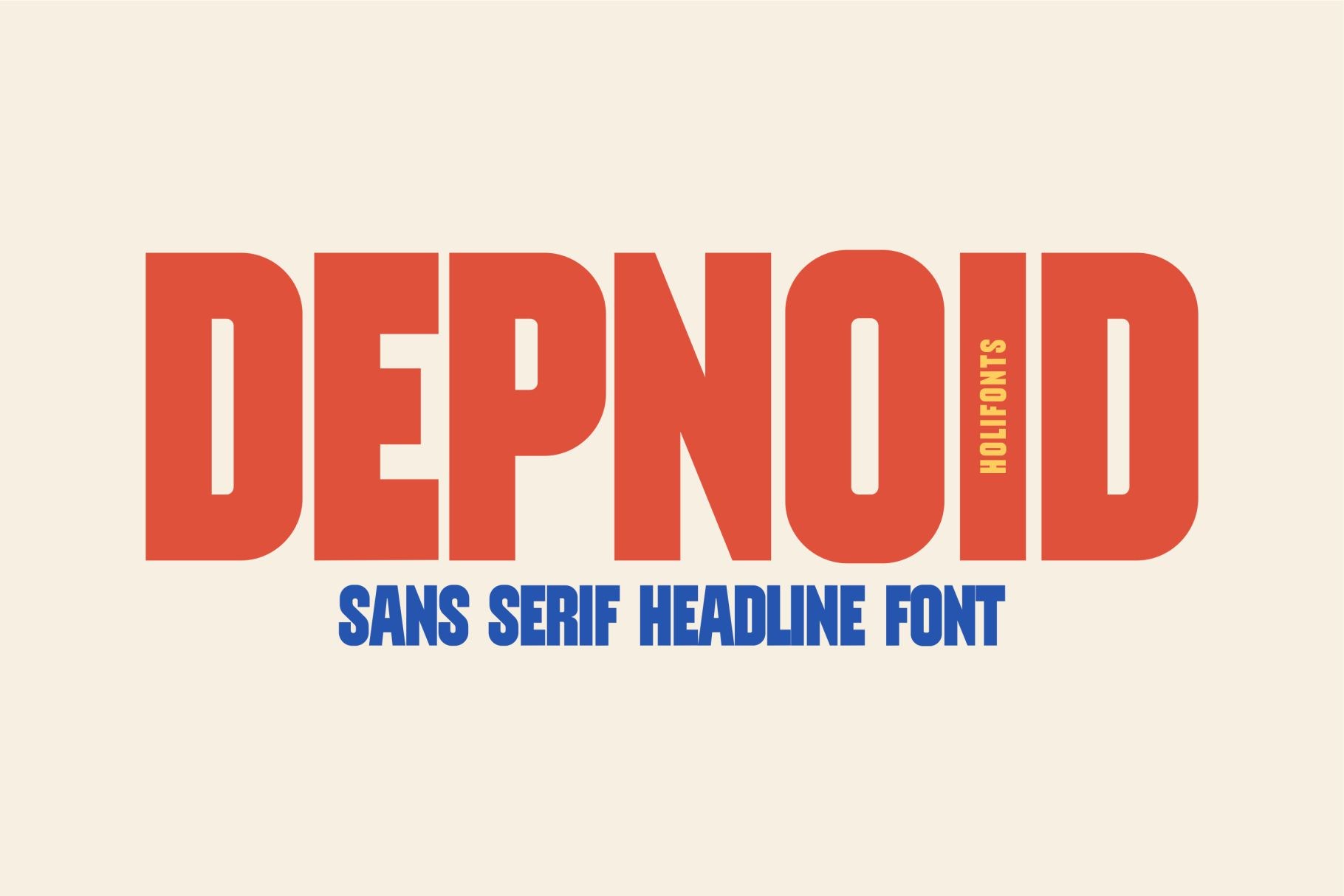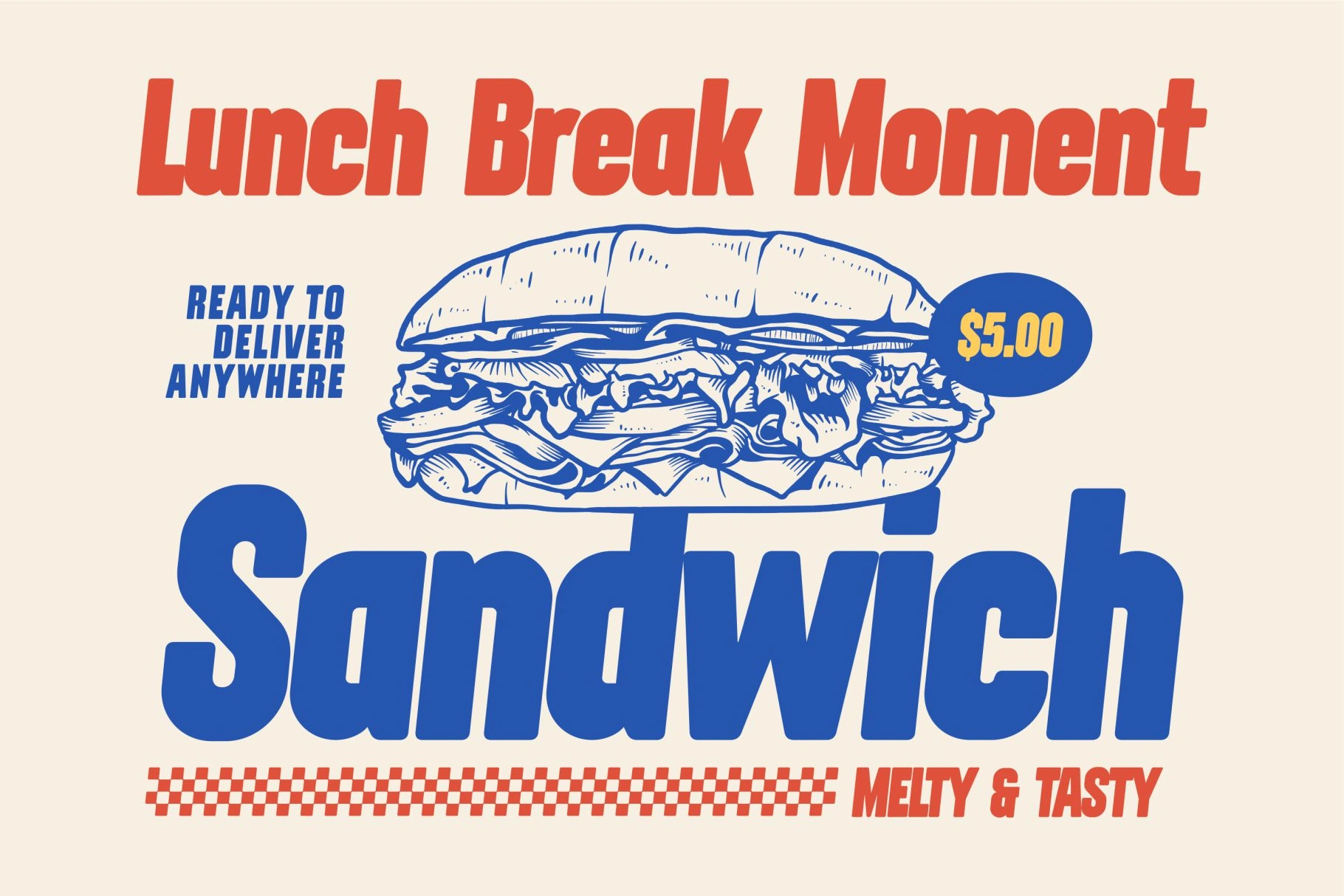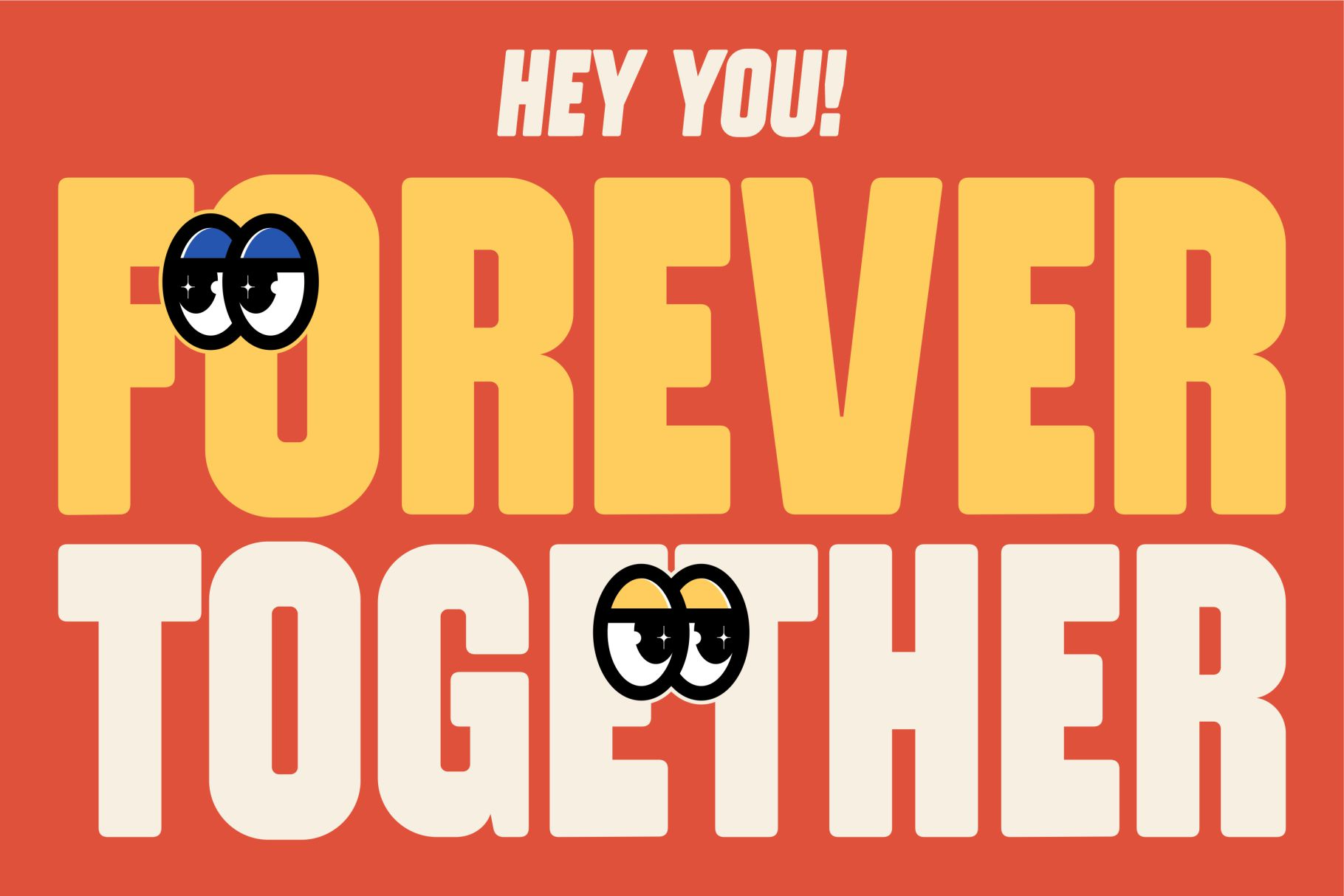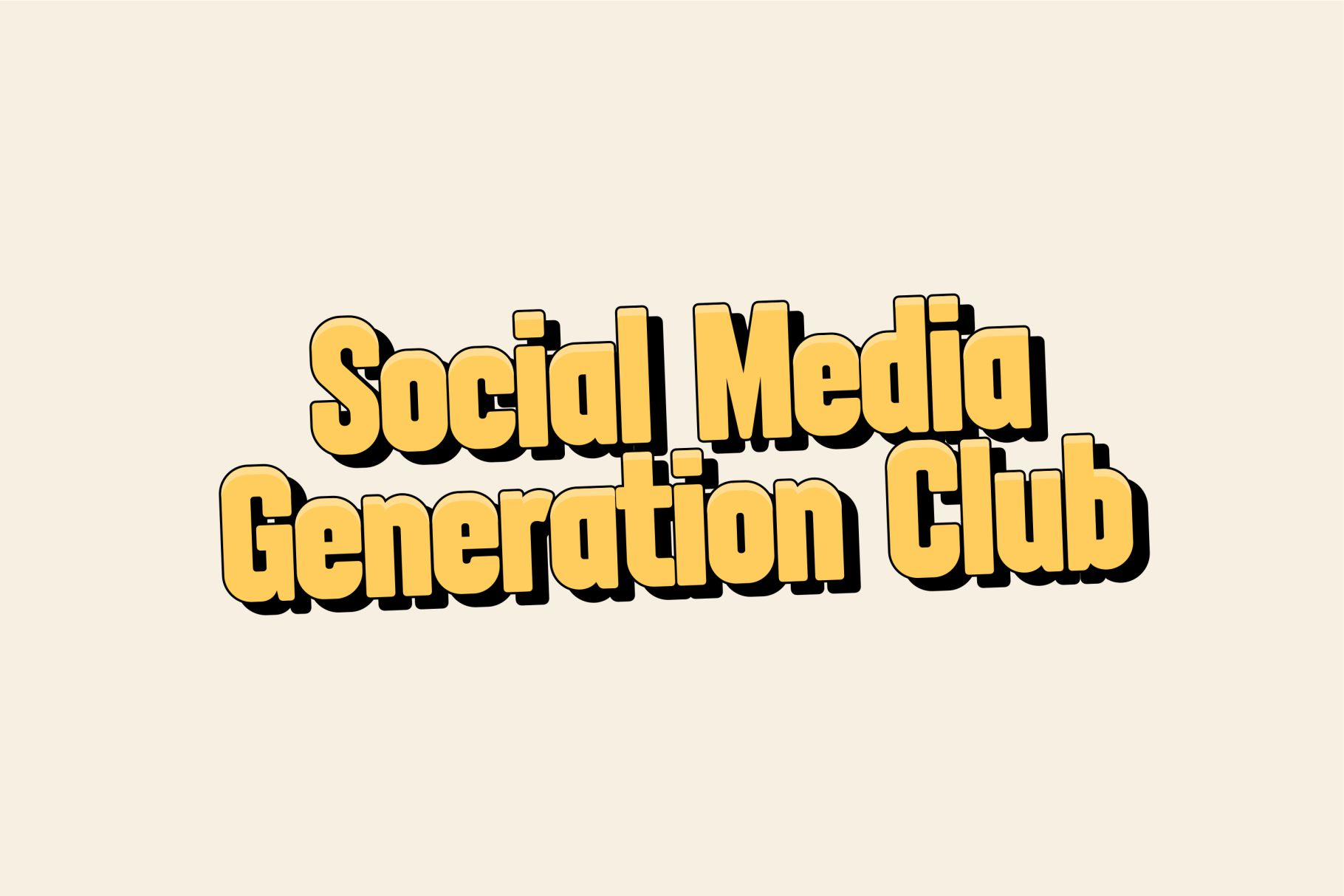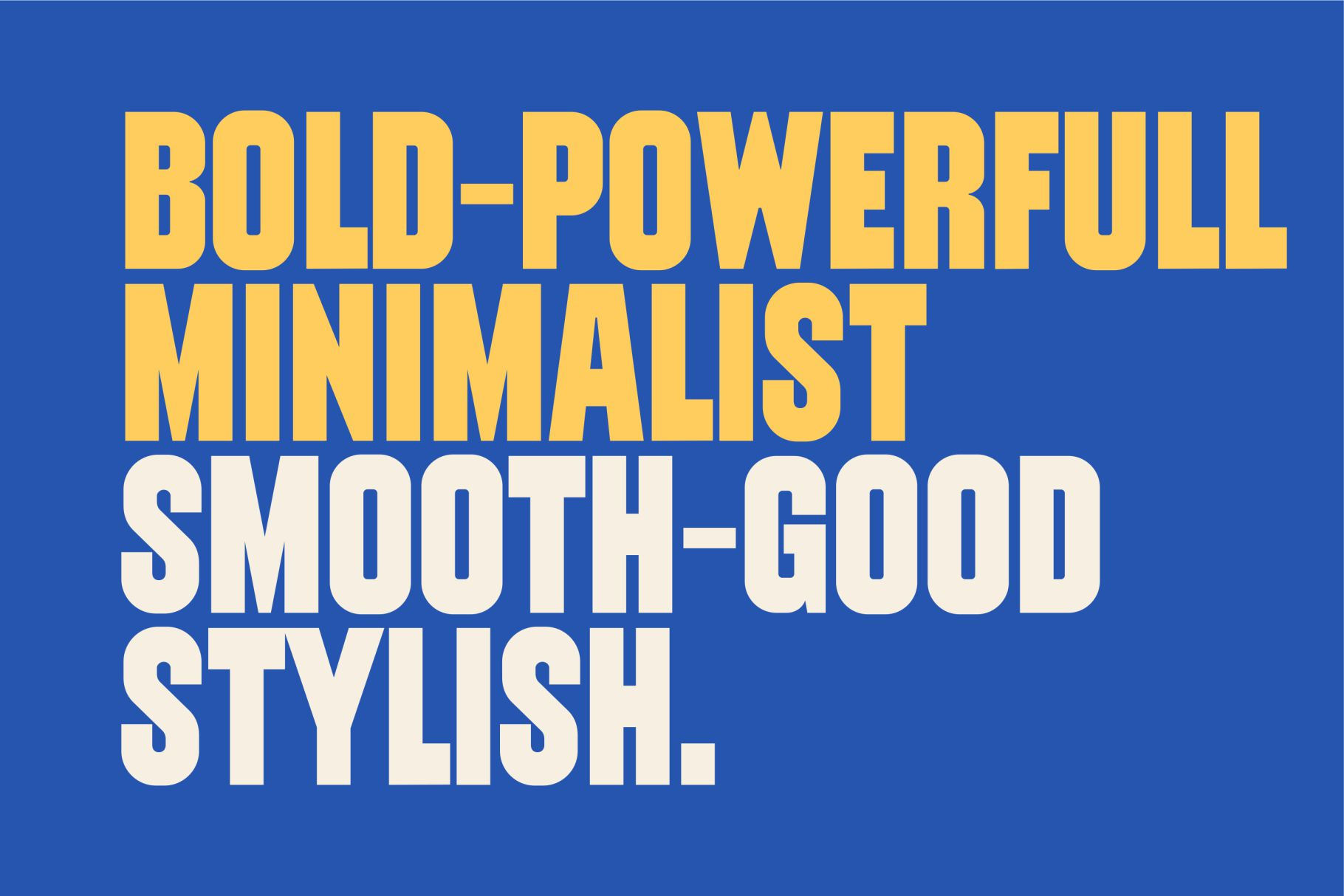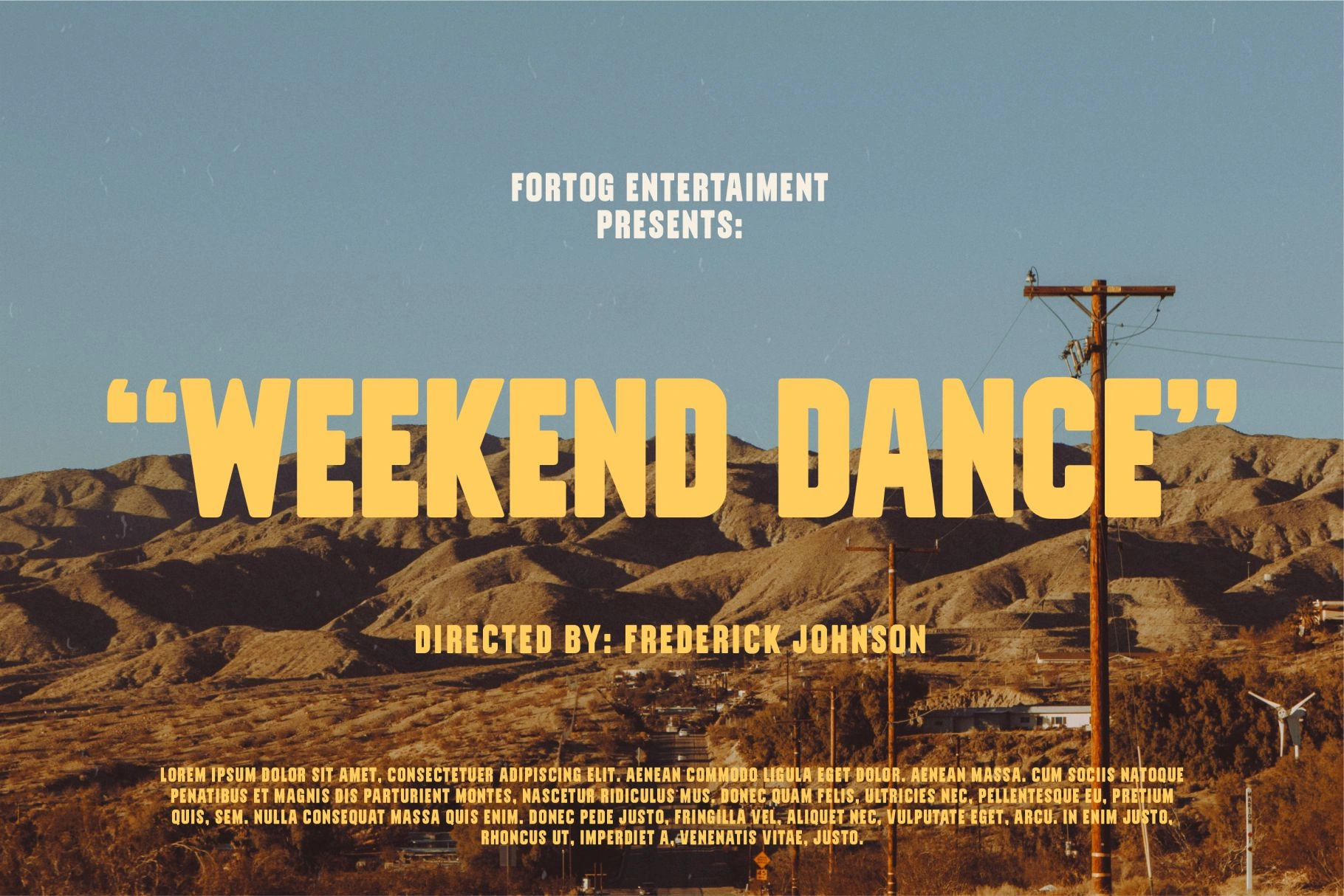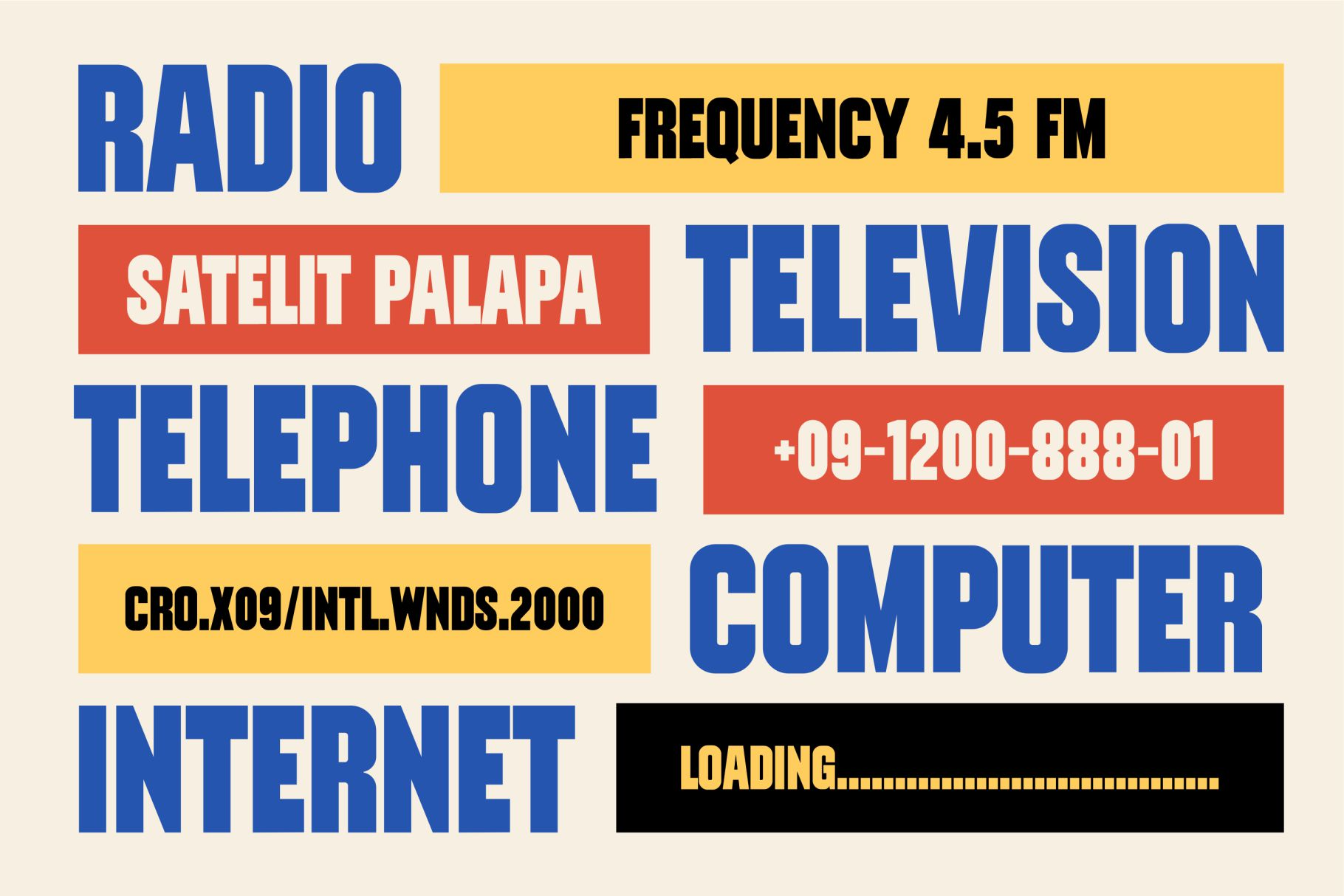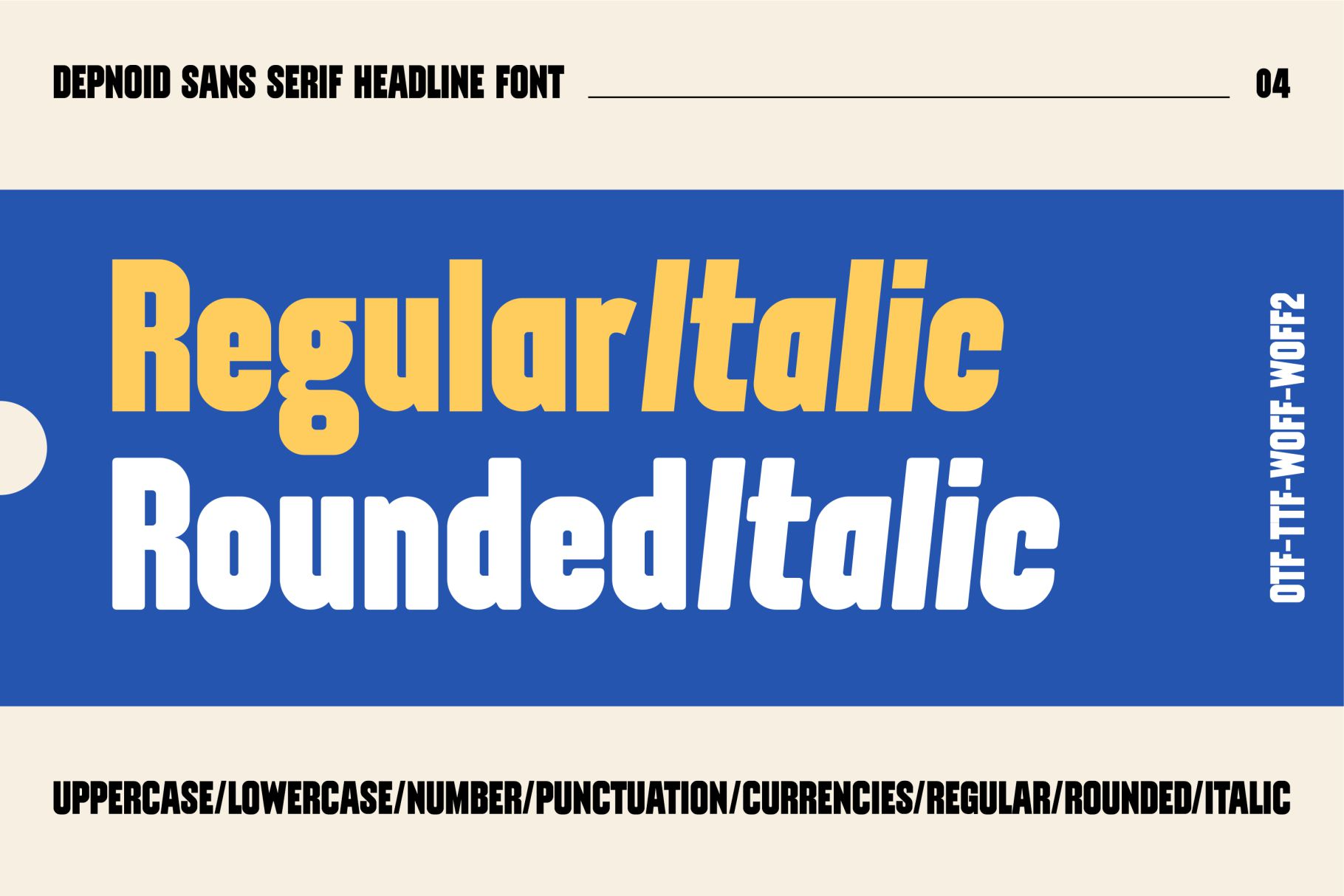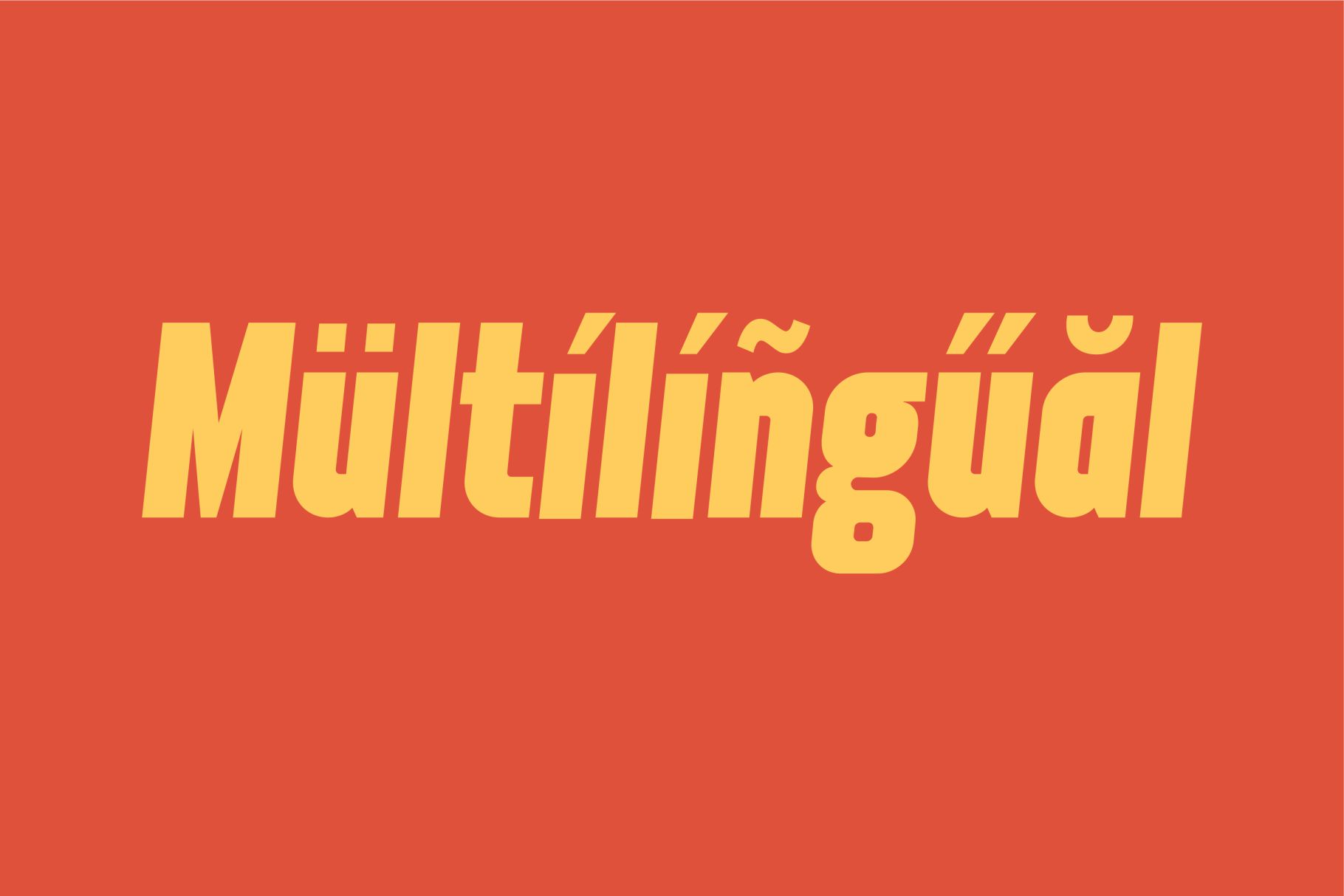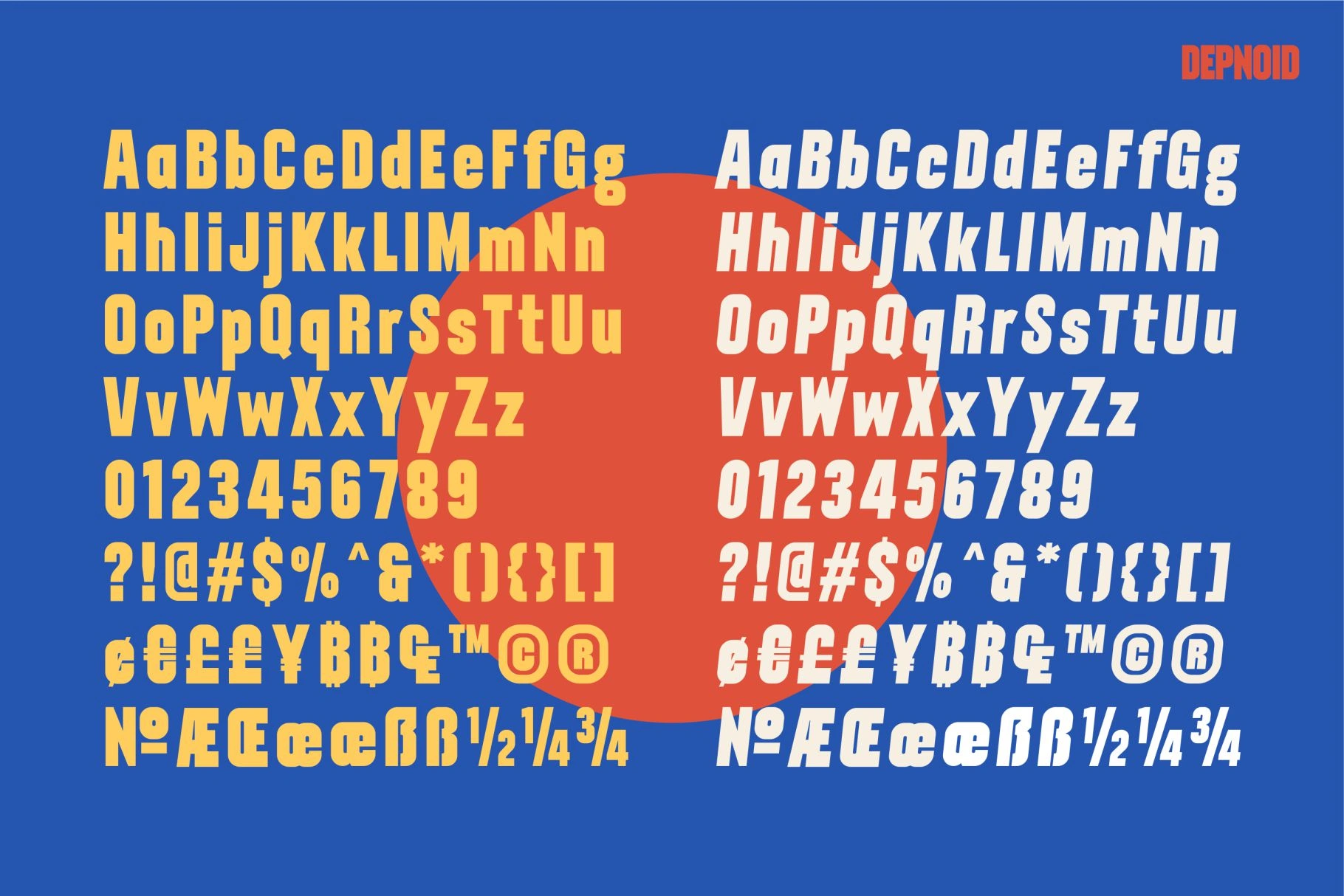
Depnoid Headline Font
Depnoid is a bold headline font with 2 styles, regular and rounded, available in italic too. Dipnoid will be good to use for posters, titles, logos, headlines in large sizes.
• Uppercase and Lowercase
• Number
• Punctuation
• Curremcy Symbol